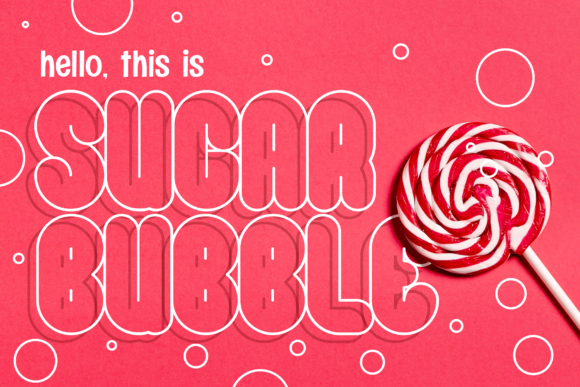
Journey into the world of Sugar Bubble Font, a delightful display font that dances with whimsy and charm. This font is more than just a collection of letters; it's a playful adventure that will transform your designs into captivating masterpieces.
With its charmingly plump letters and cheerful curves, Sugar Bubble Font exudes a sense of joy and lightheartedness. Inspired by the sweetness of cotton candy and the effervescence of soda pop, this font will add a touch of playful sophistication to your projects.
Imagine the smiles that will bloom when your customers encounter your designs featuring the Sugar Bubble Font. Whether it's a playful logo, an eye-catching social media post, or an irresistibly sweet invitation, this font will leave a lasting impression that says, "I'm fun, I'm unique, and I'm here to make you smile."
Beyond its undeniable charm, Sugar Bubble Font is a versatile performer, adapting seamlessly to a wide range of creative endeavors. From playful packaging designs that demand attention to vibrant website headers that pop, this font is your trusty companion, ready to turn your ideas into unforgettable visual experiences.
With its chunky, easy-to-read letters, Sugar Bubble Font is also a natural choice for labeling maps, ensuring that your audience never loses their way. It's the perfect font to guide your customers through a world of information, leaving them feeling both informed and uplifted.
So, why settle for ordinary fonts when you can sprinkle some sugary sweetness into your designs? Dive into the world of Sugar Bubble Font today and let your creativity soar. Let the magic of this font transform your projects into delightful works of art that spread joy and leave a lasting impression.
Don't let your designs be bland and forgettable. Add a dash of Sugar Bubble Font and watch as your creations come alive with personality and charm. Start your journey with Sugar Bubble Font now and experience the power of playful typography!